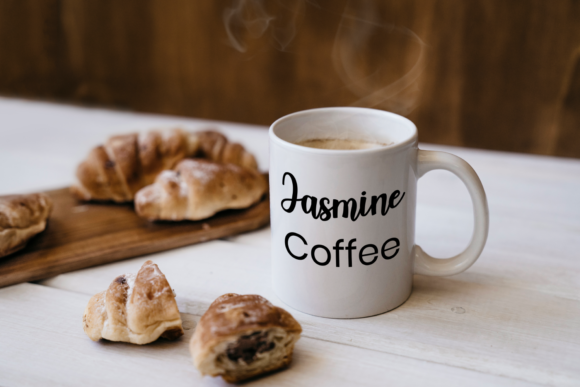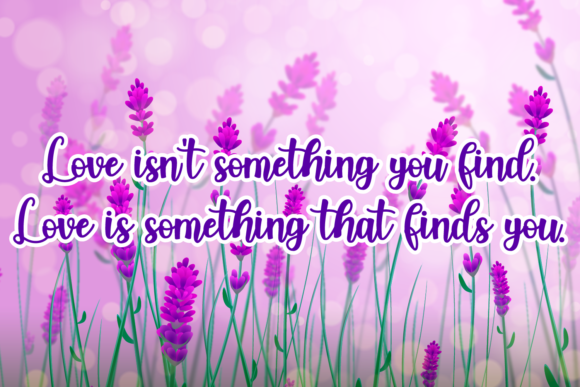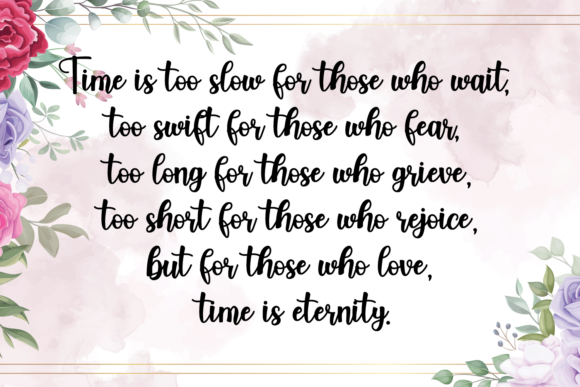
Introduction to Jasmine Lovely Font
As you sit at your desk, surrounded by scraps of paper and half-finished designs, the perfect font suddenly pops into your mind. You envision it – elegant, delicate, and full of life. That’s exactly what you get with the Jasmine Lovely Font, a true gem for any designer looking to elevate their creative project.
With its high-quality, handwritten design, this font is an absolute must-have for anyone looking to add a touch of sophistication to their work. Whether you’re working on a free download or a paid project, the Jasmine Lovely Font is sure to bring your ideas to life in a way that’s both visually stunning and professional.
As a valuable resource for designers, the Jasmine Lovely Font offers a transparent background, making it easy to use with any image or design. Its versatility and charm make it the perfect addition to any design arsenal, and we can’t wait to share it with you.
Key Features of Jasmine Lovely Font
- High-quality, elegant design perfect for creative projects and presentations
- Unique, cursive script design with a touch of elegance, making it perfect for wedding invitations, greeting cards, and other creative projects
Honest Review: Jasmine Lovely Font
As a designer, I’m always on the lookout for high-quality design resources that can elevate my creative projects. The Jasmine Lovely Font is one such find. I was excited to give it a try and see if it would meet my expectations.
What works well: ✨ The font’s delicate, floral design is perfect for creating a romantic or vintage vibe in my projects. The transparent background makes it easy to layer and customize to fit my design needs. The font’s free download is also a major plus – it’s always great to have access to quality resources without breaking the bank.
What doesn’t work well: ⚠️ While the font’s design is lovely, it can be a bit too ornate for some projects. I found that it works best in conjunction with simpler designs or when used in small doses. Additionally, the font’s file size is a bit larger than I’d like, which can slow down my design workflow.
Overall, I’d recommend the Jasmine Lovely Font to designers who are looking for a high-quality, unique design resource. Just be sure to use it thoughtfully and in the right context to get the most out of it.
Pros:
- Delicate, floral design
Cons:
- Can be too ornate for some projects
- Large file size
The Jasmine Lovely Font is perfect for a variety of creative projects, including social media graphics, blog posts, and presentations.
It is also a great resource for designers who want to add a touch of elegance and sophistication to their designs.